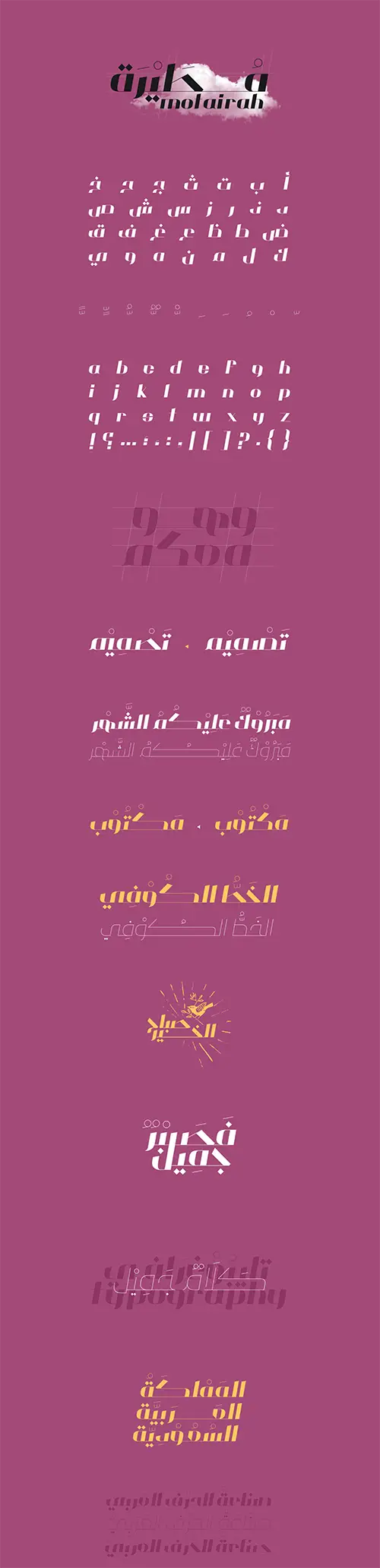
Motairah Typeface
The Motairah Typeface is a beautifully crafted font that combines elegance with modern design. This typeface features a unique blend of serif and sans-serif styles, making it versatile for various applications.
• Multiple weights for flexibility in design
• Stylish ligatures and alternate characters
This typeface is perfect for branding, logos, web design, and print materials. Its modern aesthetic makes it suitable for both professional and creative projects.